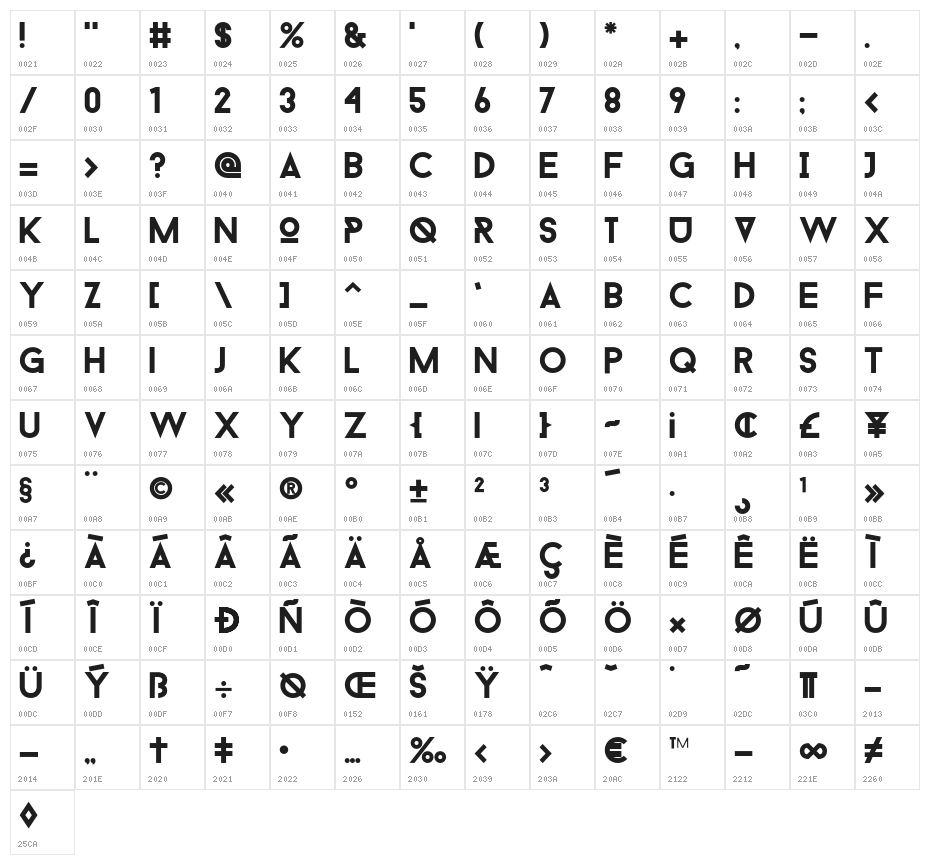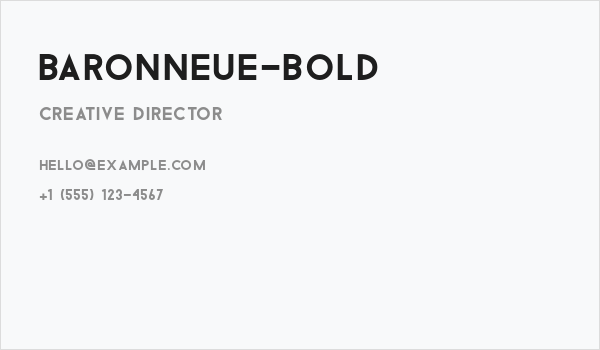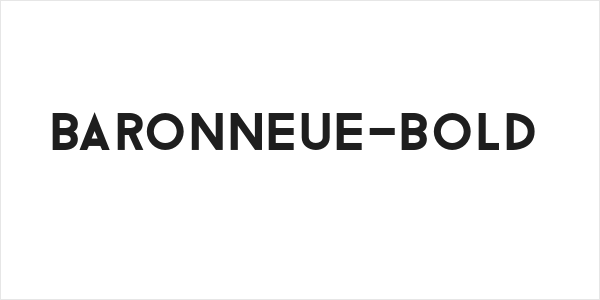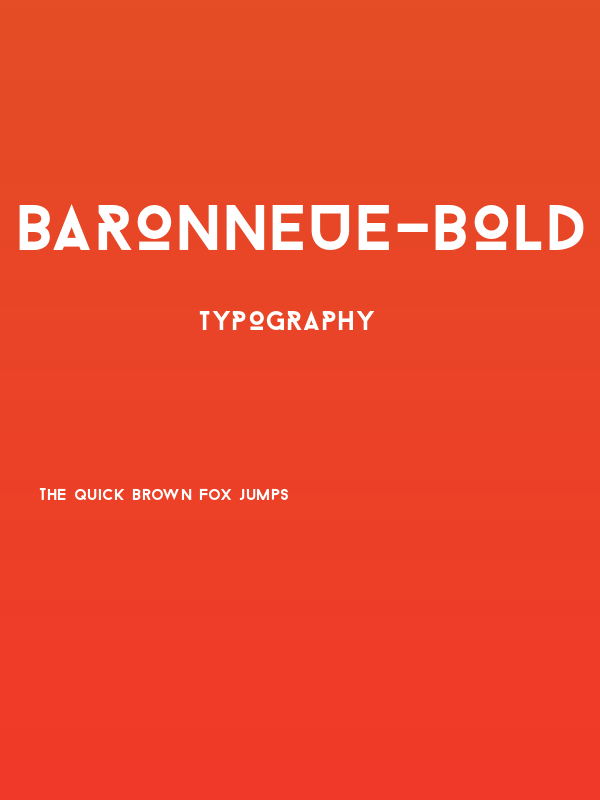
BaronNeue-Bold Font
BaronNeue-Bold Description
This typeface features a bold and modern aesthetic with clean, geometric lines. The characters are uniformly thick, giving a strong and assertive appearance. The uppercase letters are particularly striking, with sharp angles and a consistent height that enhances readability. The numerals and special characters maintain the same boldness, ensuring a cohesive look across all text elements. This font is well-suited for making impactful statements, thanks to its clear and straightforward design. Its simplicity and strength make it versatile for various design needs.